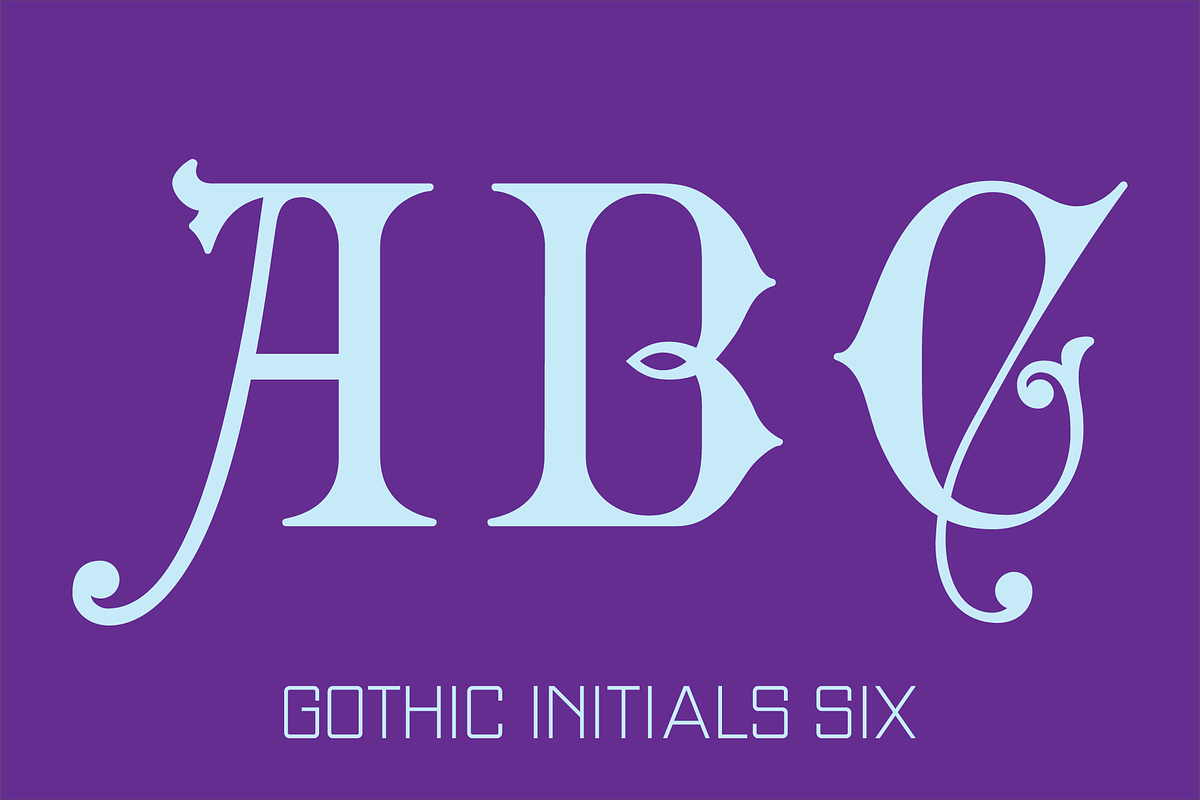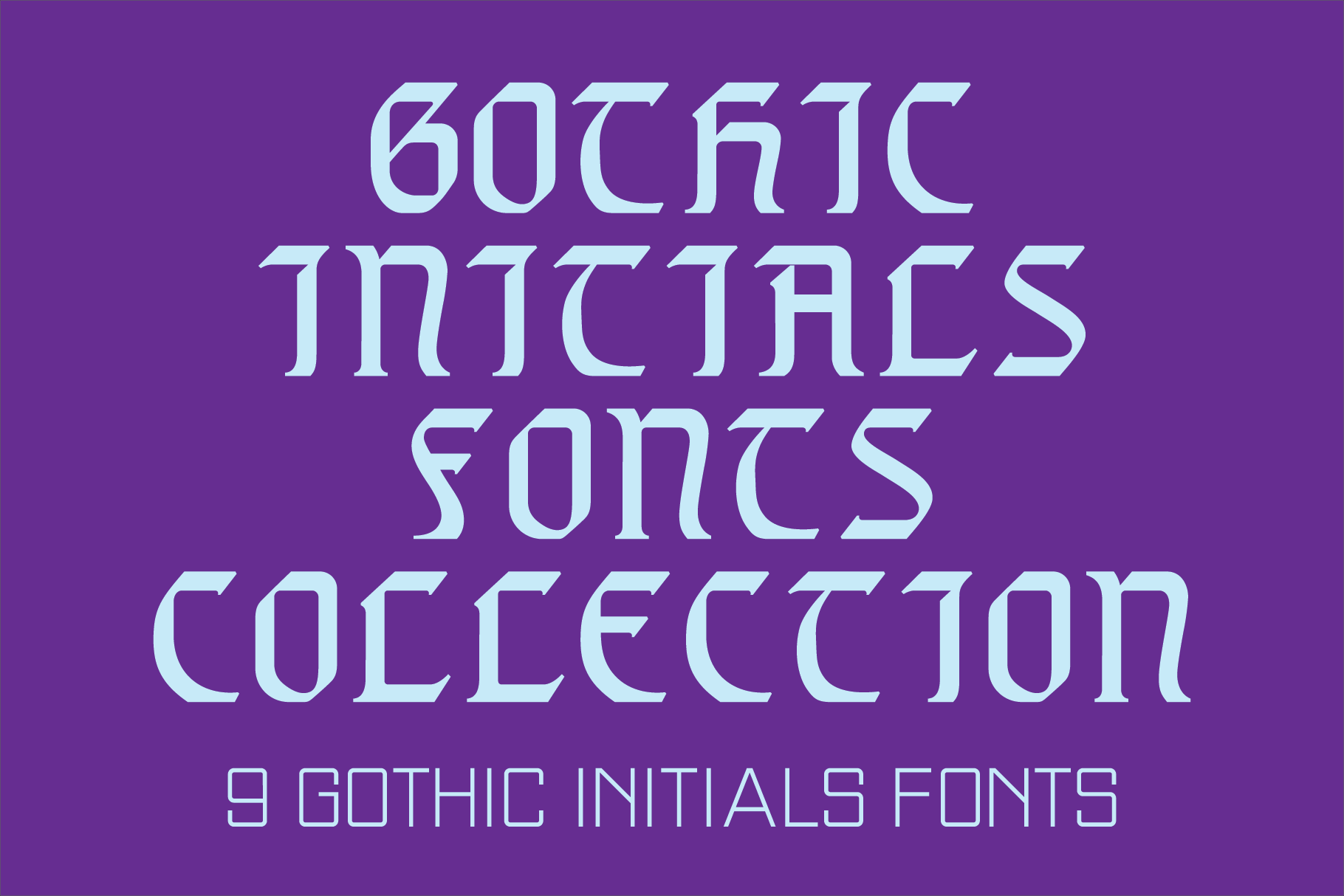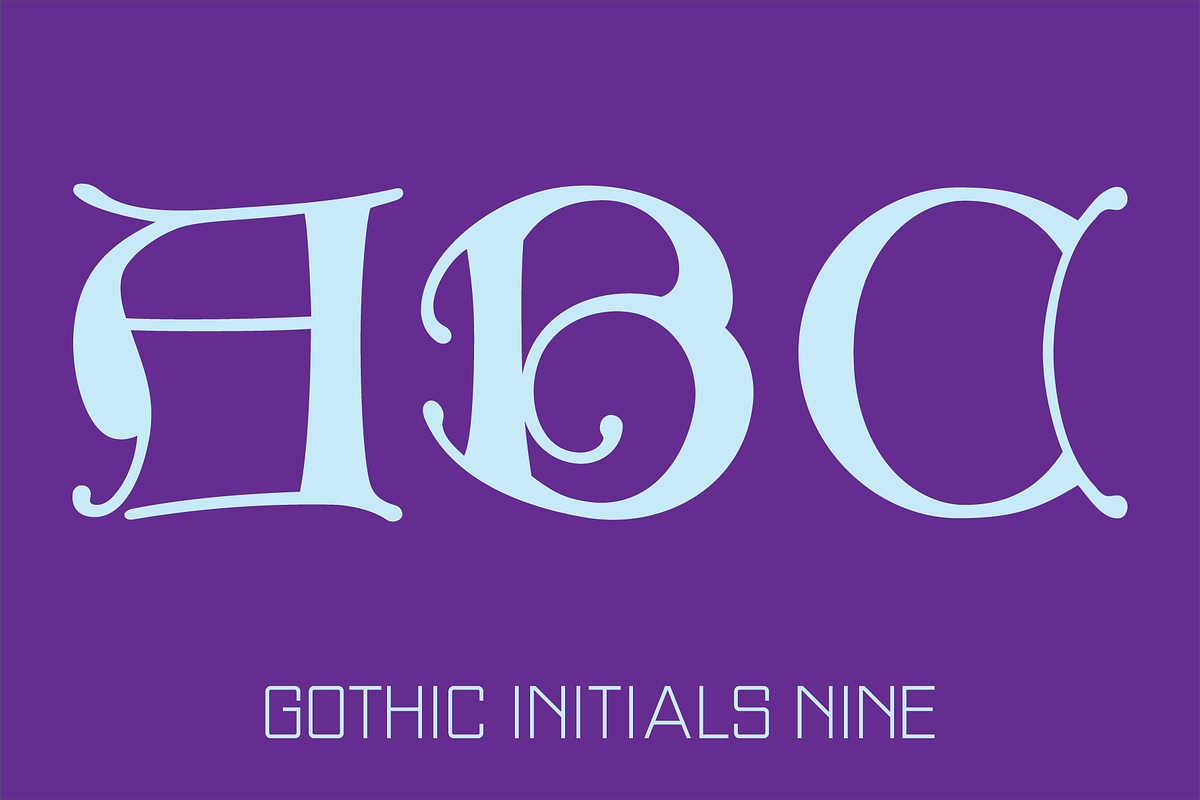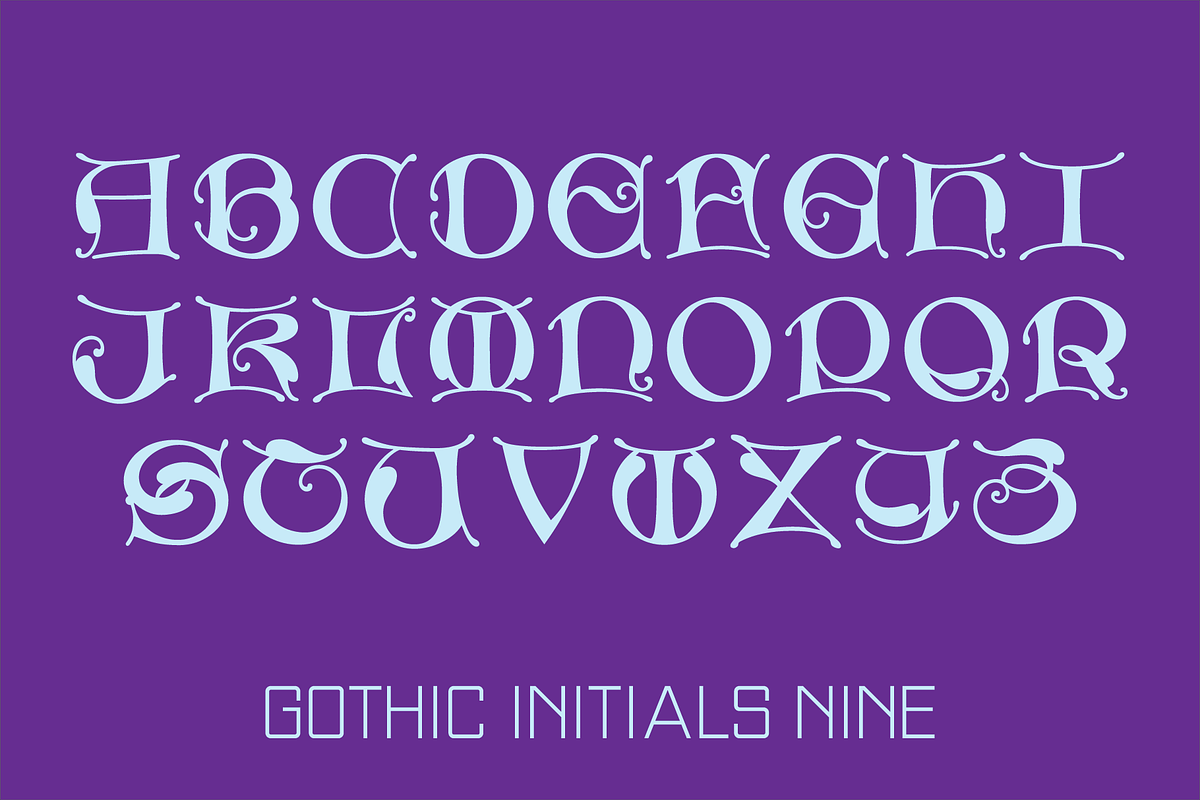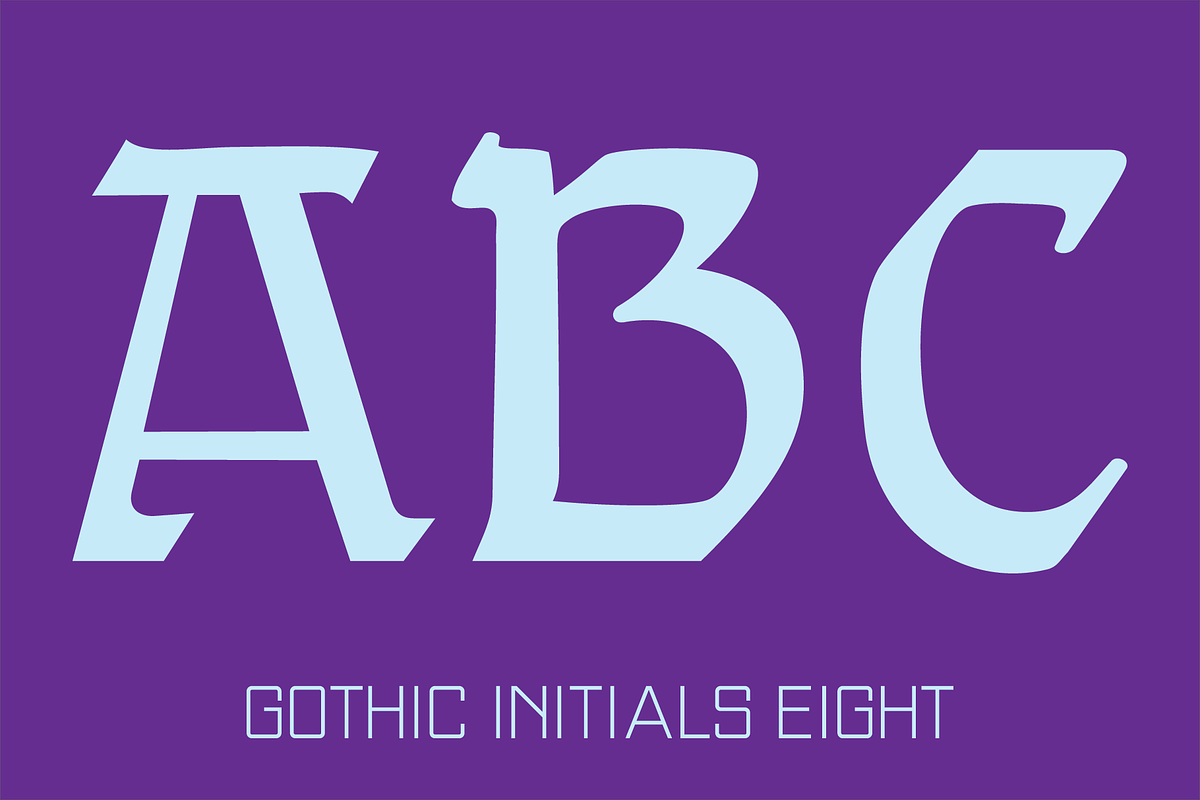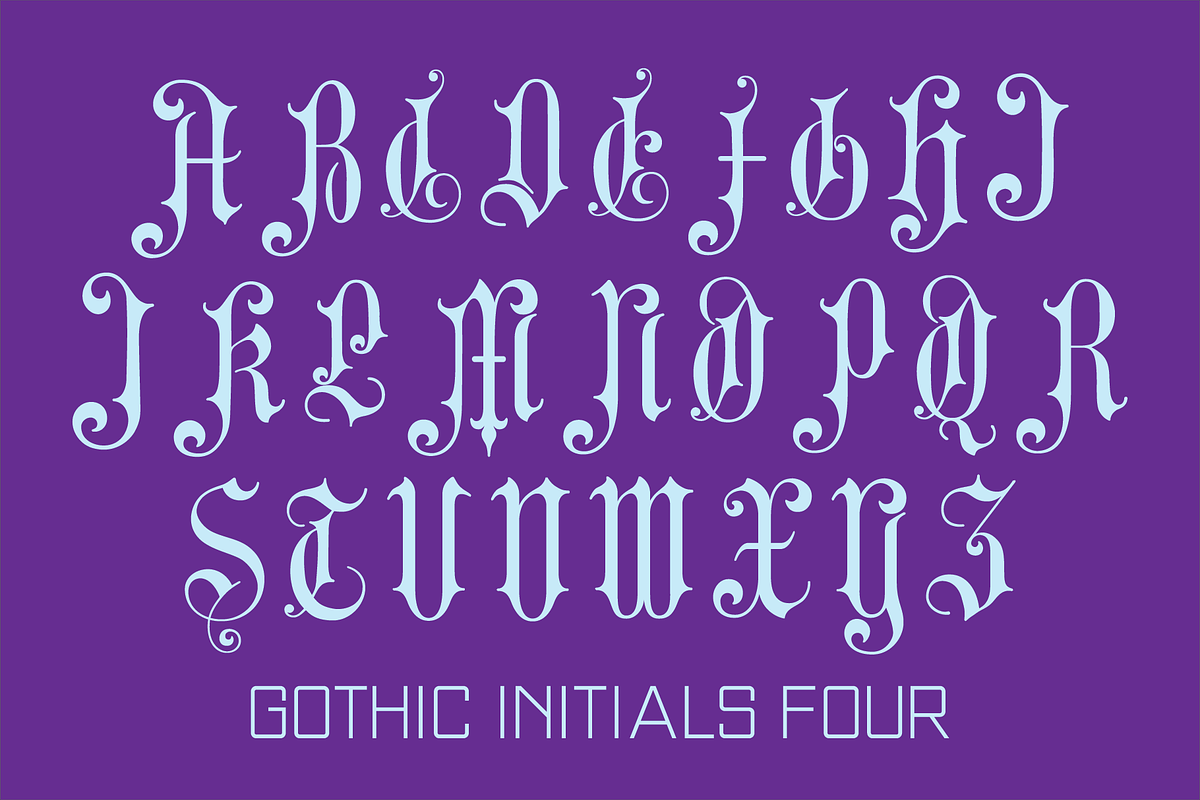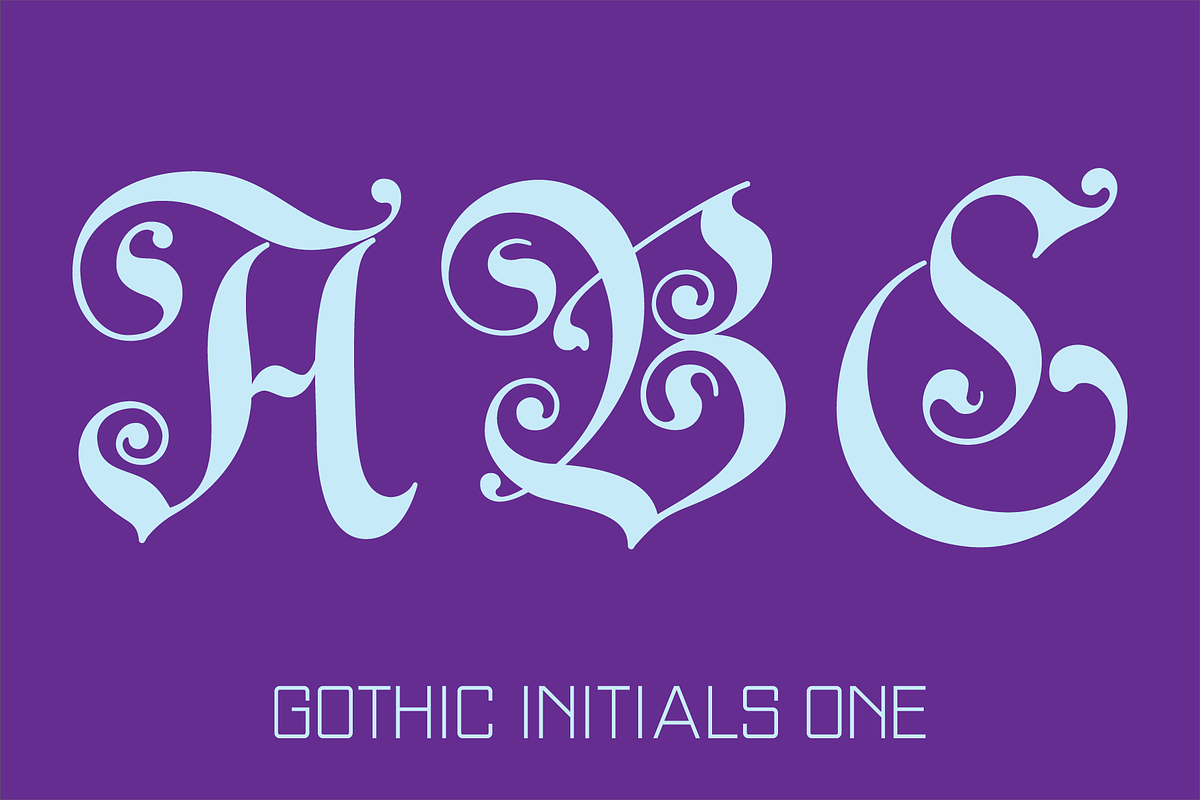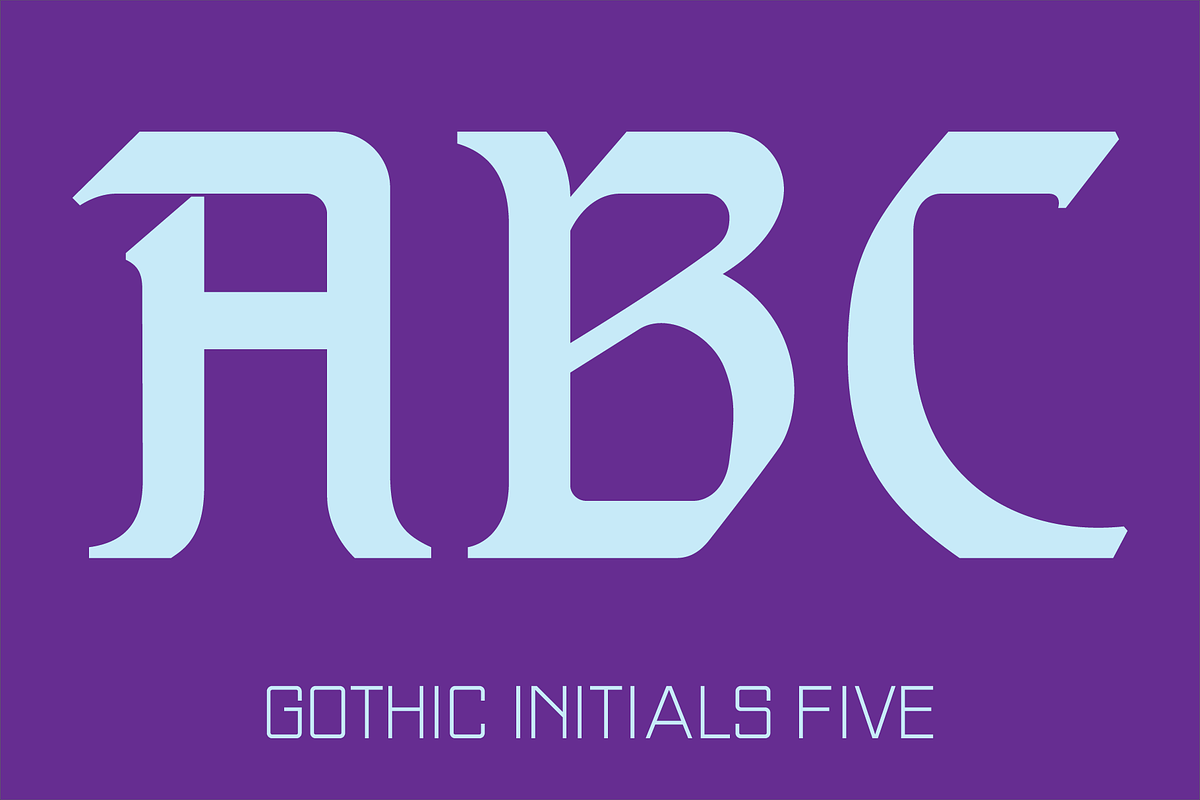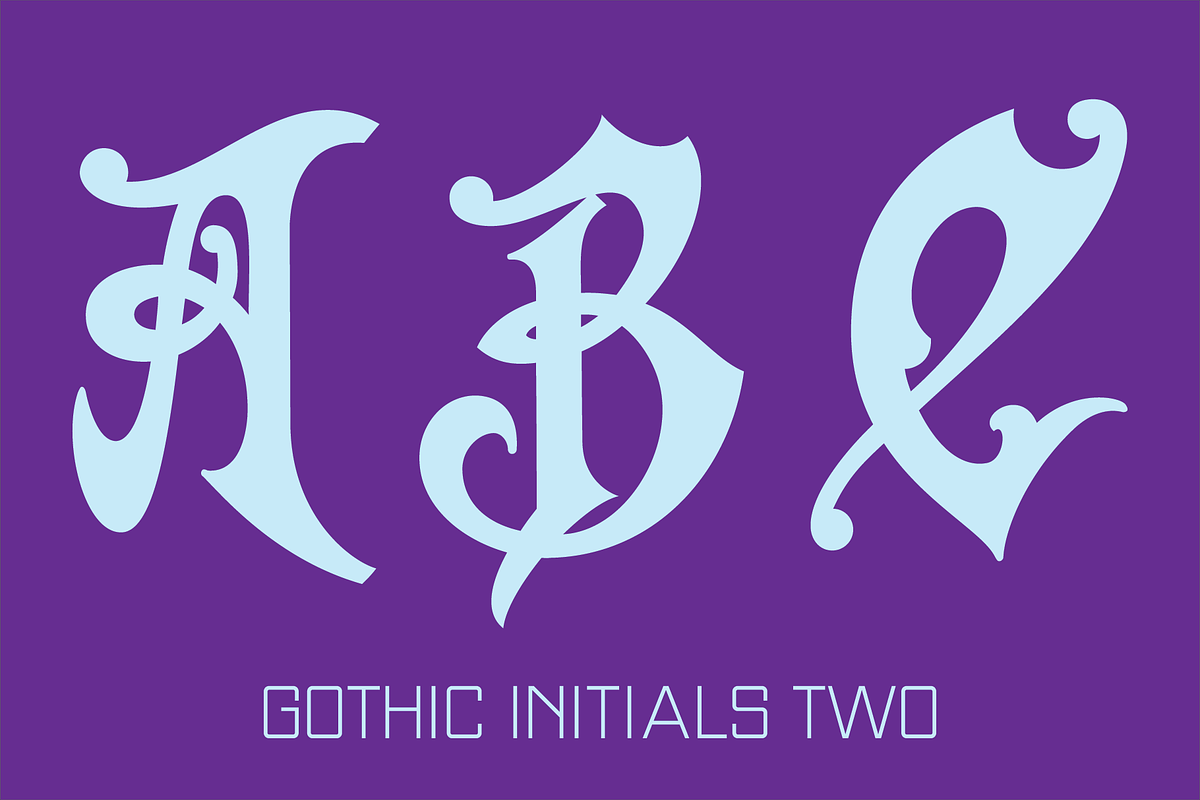
Gothic Initials Fonts Collection
The Gothic Initials fonts were inspired by the beautifully-written gothic scripts of medieval scribes.
The fonts contain the uppercase letters A through Z located under both the character set and shift+character set keys.
These fonts are intended for use as initials, monograms, drop caps or wherever fancy letters are desirable.